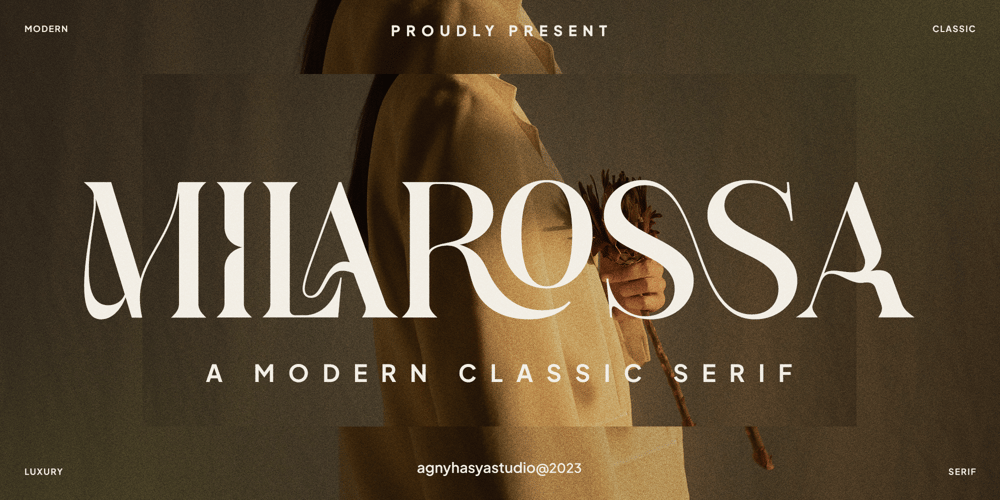
Milarossa Font Family was designed by Firman Maulana and published by Agny Hasya Studio. Milarossa contains 2 styles and family package options. Milarossa Is a Serif Display Typeface That Is Elegant and Classic Yet Modern. It Comes in 2 (Two) Styles (Regular and Italic) and Is Created With Stylistic Alternatives and Ligatures.Perfect for Your Design Projects Like Logos, Branding, Advertising, Product Designs, Stationery, Magazine Designs, Book/Cover Title Designs, Photography, Art Quotes, Wedding Designs, Fashion Designs, Special Events, Labels, Product Packaging, and More.Featured with Uppercase and Lowercase, Numeral and Punctuation, Multilingual Support, and Opentype Features.